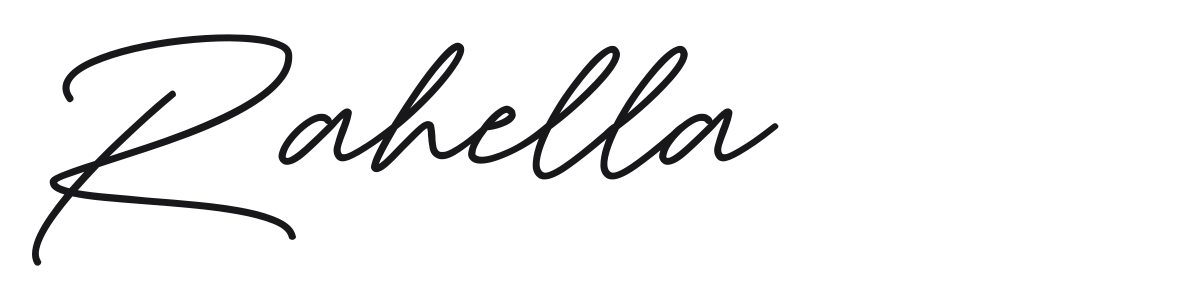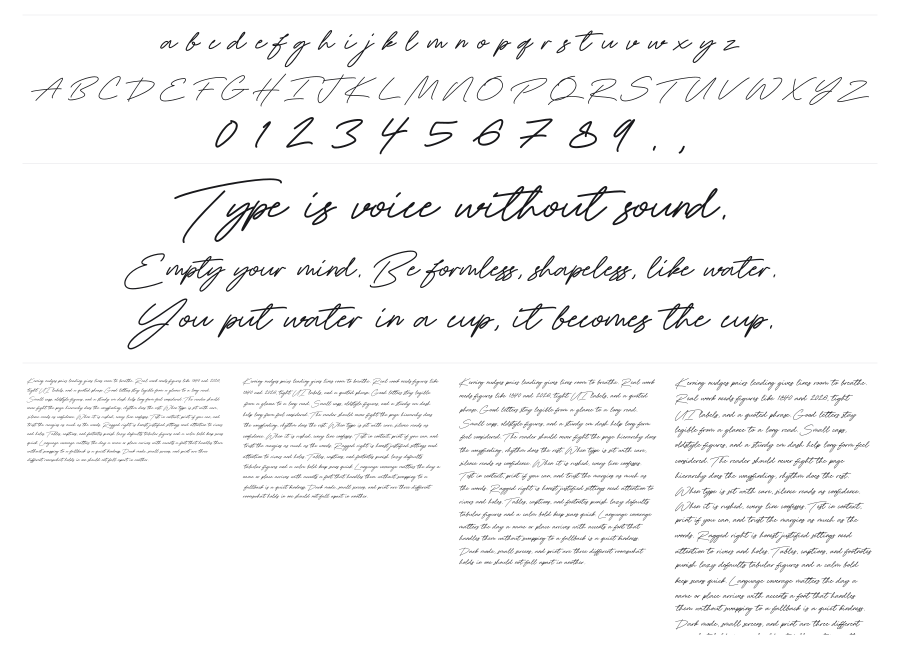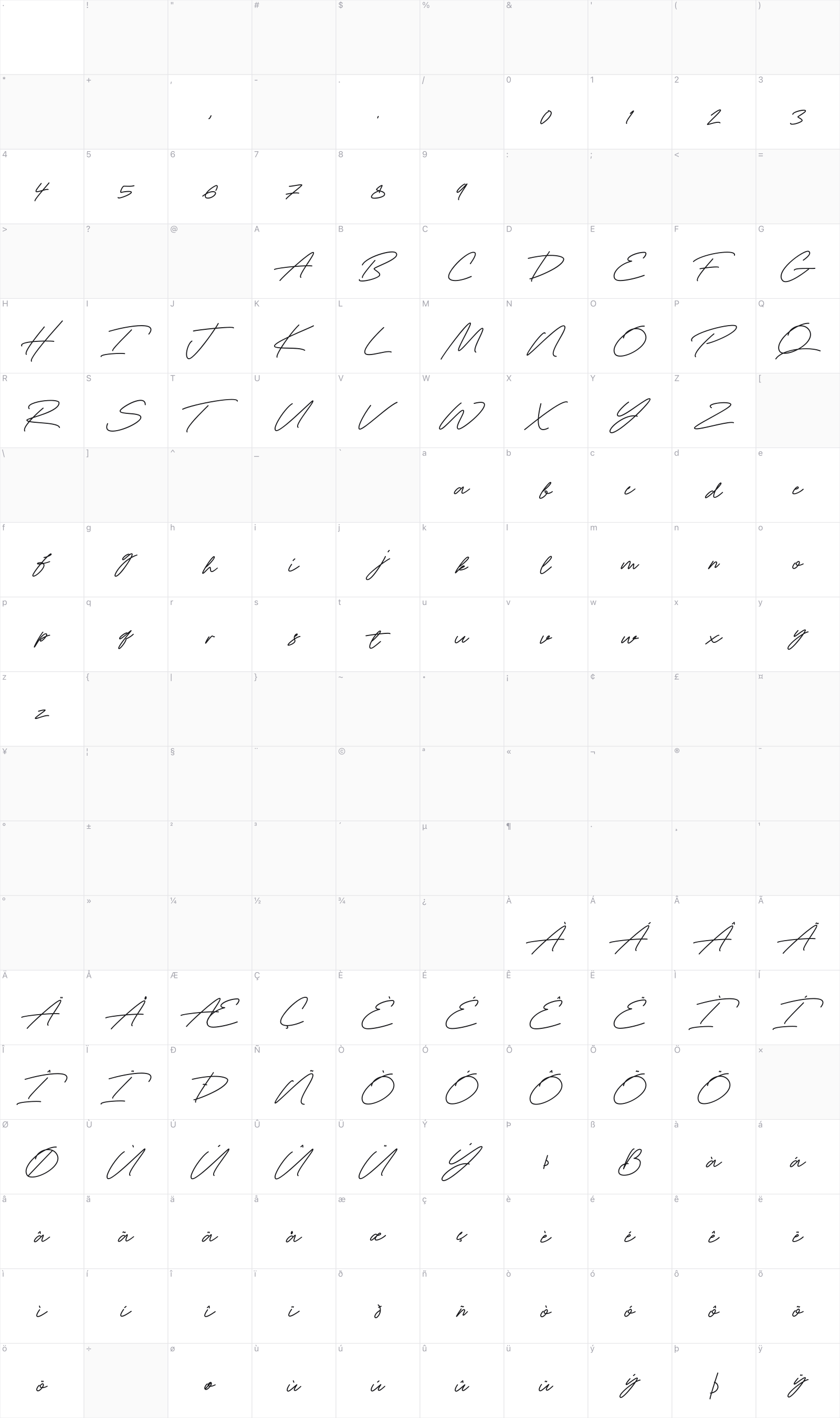
Rahella
Rahella is a casual handwritten script with a loose, flowing rhythm that feels like a confident pen in motion. Long strokes, open loops, and natural connections give it an effortless quality without looking sloppy. It works well at large sizes for logos, packaging, and social media graphics where a personal, artisan touch is needed.